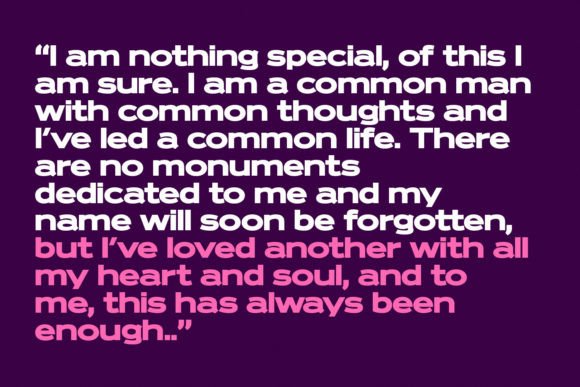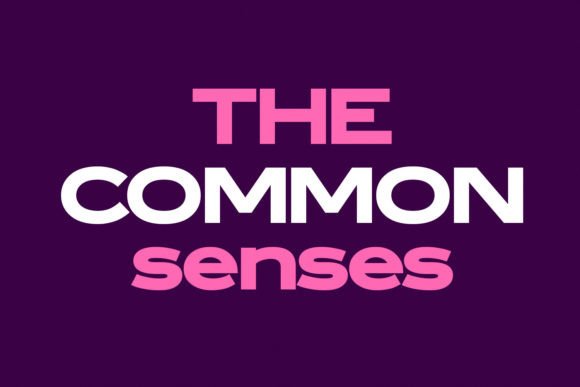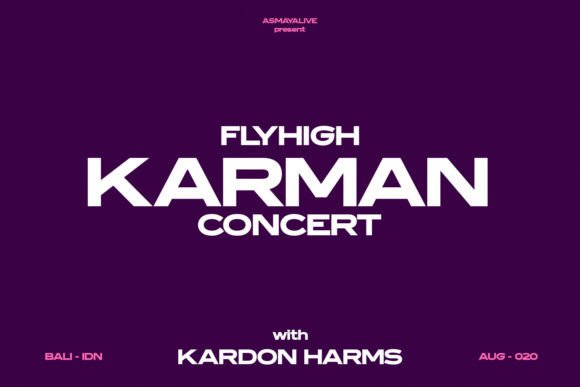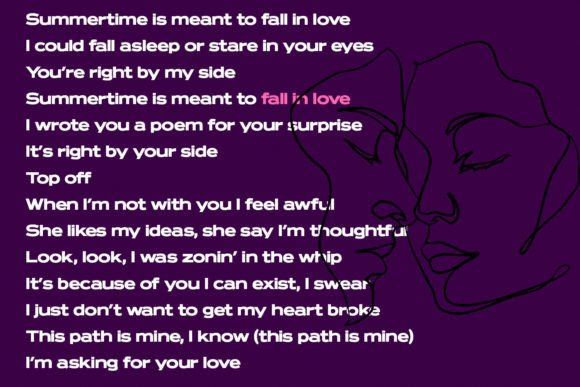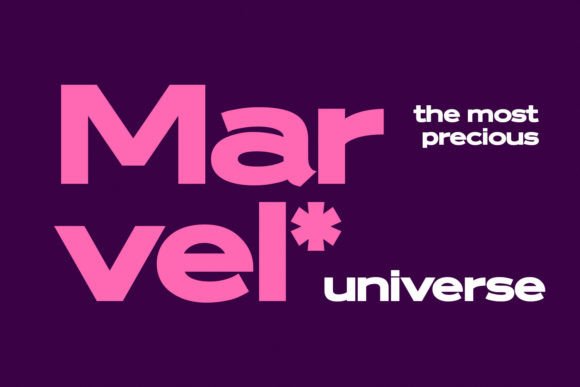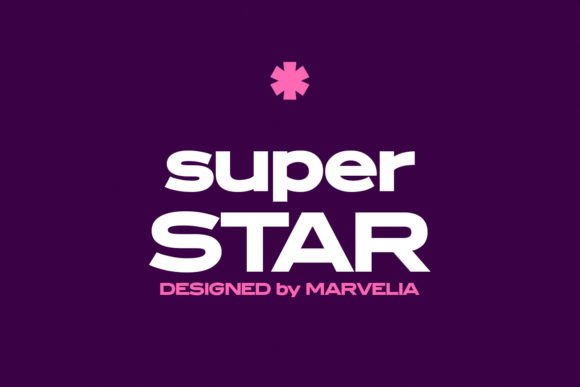
The Perfect Blend of Fun and Elegance: Glasser Font
Have you ever been stuck in front of a blank page, staring at a blank canvas, and wondering what font to use for your next project? We’ve all been there. The pressure to create something unique and captivating can be overwhelming. But what if I told you there’s a font that can bring your creative vision to life? Enter the Glasser Font, a modern wide sans display font that’s sure to make your designs stand out.
This versatile font is perfect for logo design, social media, movie titles, and even book titles. With its bold strokes, fun character, and ligature, Glasser Font adds a touch of personality to any text. Whether you’re working on a short text or a long letter, Glasser Font is the perfect companion to help you create stunning work.
Glasser Font Key Features
- Unique Characteristics: Glasser Font features a unique blend of modern and vintage elements, with intricate details and subtle texture, making it suitable for various design applications.
- Script and Language Support: The font supports a wide range of languages, including Latin, Greek, and Cyrillic scripts.
- Font Weight and Style: Glasser Font is available in 6 weights, ranging from Light to Extra Bold, with matching italics and obliques.
- Optical Size and Kerning: The font includes advanced optical size and kerning features, ensuring optimal readability and aesthetics across various font sizes.
Design Review: Glasser Font
I recently had the chance to work with the Glasser Font, and I must say it’s an interesting typeface. Here’s my honest review.
- The Glasser Font has a unique, futuristic feel that’s perfect for sci-fi or tech-related projects.
- The font is highly legible, even at smaller sizes, which is a must-have for digital displays.
- The font family includes a wide range of weights and styles, offering plenty of flexibility for designers.
- The font may not be suitable for projects that require a more traditional or elegant look.
- The Glasser Font can feel a bit cold or sterile, which may not be ideal for projects that require a more warm or inviting tone.
- The font’s futuristic feel may not be suitable for projects that require a more timeless or classic look.
Overall, I’d say the Glasser Font is a solid choice for designers who are looking for a unique and modern typeface. While it may not be suitable for every project, it’s definitely worth considering for the right type of design.
Getting the Most Out of Glasser Font
For the best results, use Glasser Font with bold or italic styles to create emphasis.
Experiment with different font sizes to create visual hierarchy in your design.
Combine Glasser Font with other fonts for a unique and creative look.
Glasser Font is ideal for:
Creating eye-catching headings and titles.
Designing modern and sleek logos.
Adding a touch of sophistication to business presentations and documents.
Alternatives to Glasser Font
Open Sans is a popular sans-serif font that is highly legible and versatile. It is suitable for body text, headings, and even logos. Open Sans is a good alternative to Glasser Font for designers who want a clean and modern look.
Comparison: Glasser Font is more condensed and has a more geometric feel, whereas Open Sans is more open and has a friendly feel. Glasser Font is better suited for titles and headings, while Open Sans is better for body text.
Lato is a sans-serif font that is highly customizable and versatile. It has a clean and modern look that is suitable for a wide range of designs. Lato is a good alternative to Glasser Font for designers who want a font that is both elegant and functional.
Comparison: Glasser Font is more condensed and has a more geometric feel, whereas Lato is more open and has a friendly feel. Glasser Font is better suited for titles and headings, while Lato is better for body text and longer passages.
Montserat is a sans-serif font that is highly legible and versatile. It has a strong and urban feel that is suitable for designs that need to convey a sense of energy and modernity. Montserrat is a good alternative to Glasser Font for designers who want a font that is both bold and elegant.